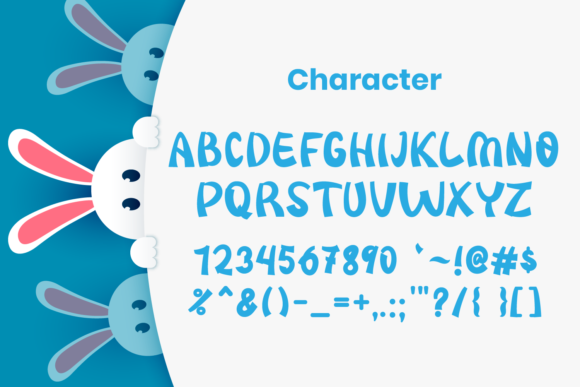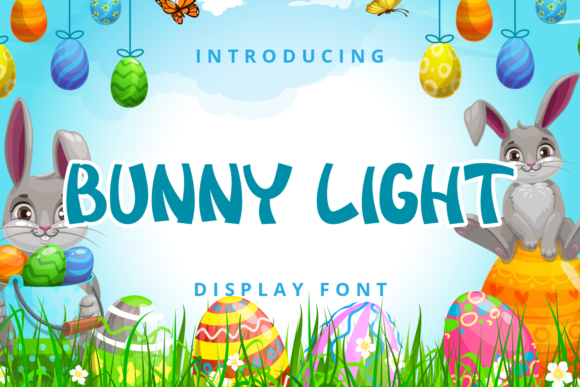
The Bunny Light Font: A Whimsical Addition to Your Design Arsenal
I’ll never forget the time I was working on a project for a client who wanted a playful, yet elegant font to match their brand’s new direction. I scoured the internet for hours, trying to find the perfect fit, but nothing seemed quite right. That was until I stumbled upon the Bunny Light font. It was like a breath of fresh air – a whimsical display font with a relaxed theme that instantly elevated my design. In this article, I’ll share my experience with Bunny Light, its features, and how to make the most of it in your designs.
An Honest Review of Bunny Light
- ✨ Its unique, hand-crafted feel that adds a touch of personality to any design
- ✅ The font’s versatility – it can be used for a wide range of projects, from branding to packaging
- 🌈 A beautiful, consistent flow that makes it a joy to work with
- 📚 The inclusion of OpenType features, glyphs, and stylistic alternates that allow for endless creativity
While Bunny Light is an amazing font, there are a few things to keep in mind:
- 🤔 It may not be the best choice for body text, as it’s primarily designed for display purposes
- ⚠️ Some users may find the font’s quirks and irregularities too pronounced for certain projects
The Story Behind Bunny Light
Bunny Light was designed with the intention of creating a font that would bring a touch of whimsy to any design project. The designer wanted to craft a font that was both elegant and playful, with a unique character that would set it apart from more traditional fonts. The result is a font that is both versatile and eye-catching.
| Font Name | Bunny Light Font |
| Author | Planetz studio |
Q: Is Bunny Light suitable for body text?
A: While Bunny Light is a beautiful font, it’s primarily designed for display purposes. For body text, you may want to consider a font with better legibility.
Q: Does Bunny Light come with any OpenType features?
A: Yes, Bunny Light includes a range of OpenType features, glyphs, and stylistic alternates that allow for endless creativity and customization.